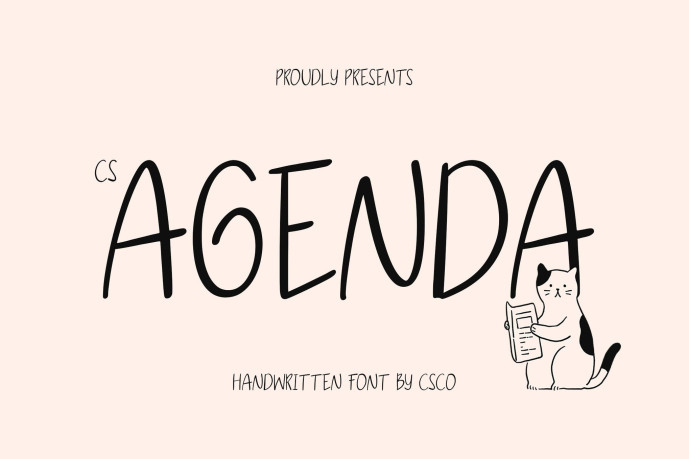
Agenda – Handwritten Font
Designer: craftsupplyco
CS Agenda – Handwritten Sans Font with Modern Personality: Where Handwritten Warmth Meets Sans Serif Clarity
Casual Elegance with a Human Touch This font blends the charm of casual handwritten strokes with the structure and clarity of a sans serif. Its design captures the friendliness of handwriting while retaining the clean balance of modern typography, making it approachable and stylish at the same time.
Readable and Versatile Design The subtle handwritten texture softens the sans serif framework, giving the font a natural, personal character. This balance ensures that a font remains easy to read while still carrying a distinctive personality, perfect for both display and text use.